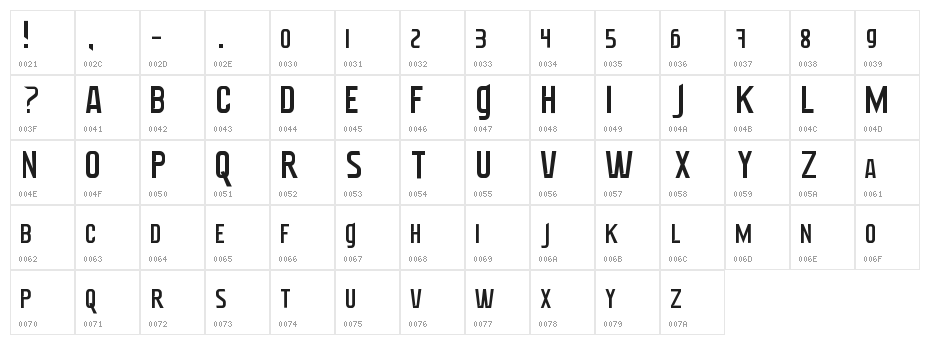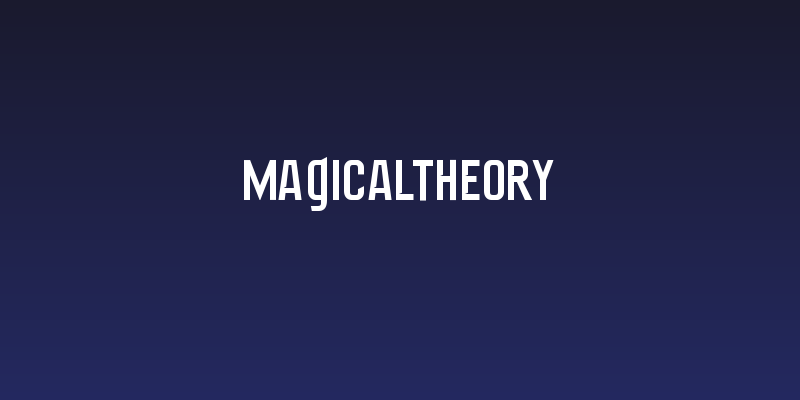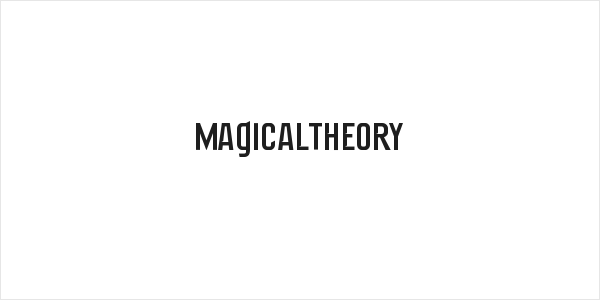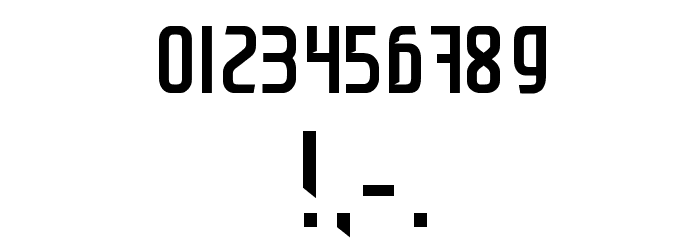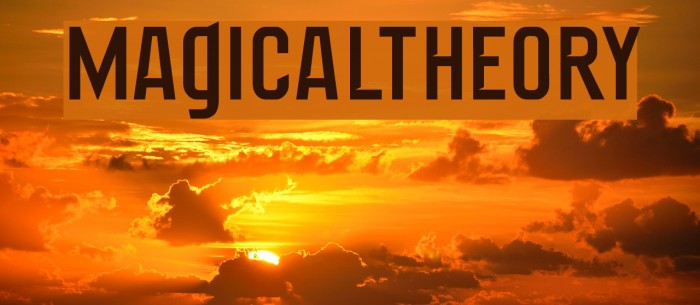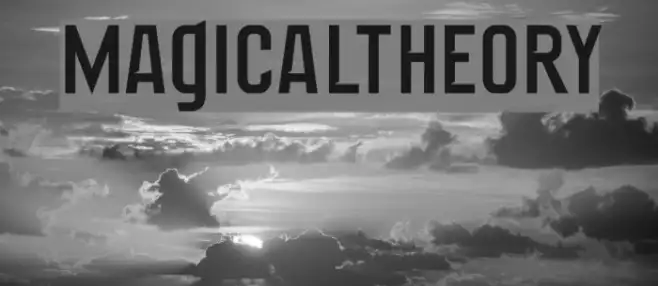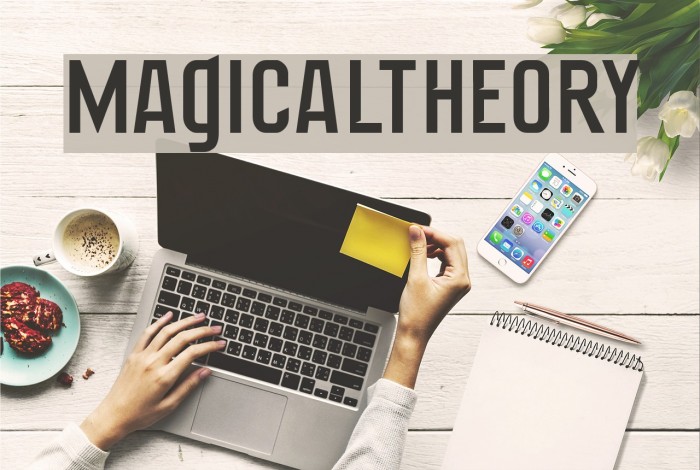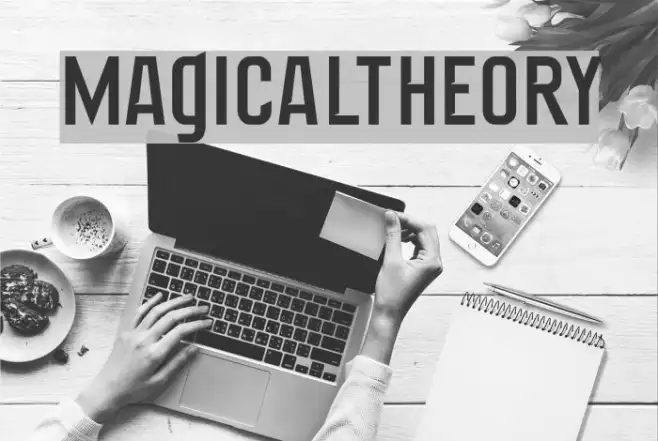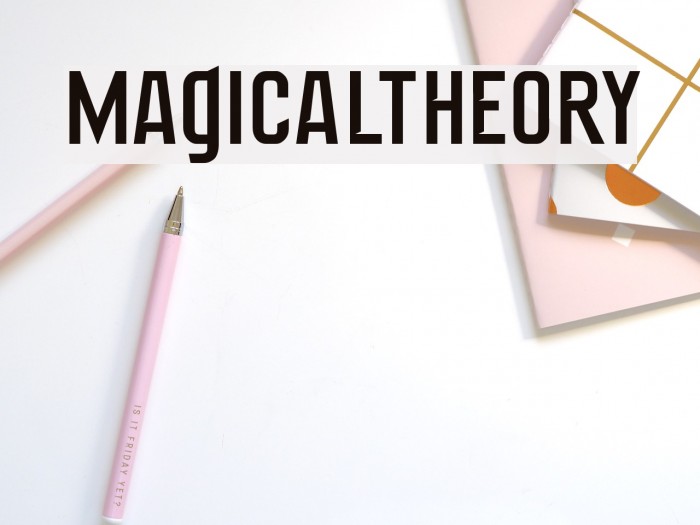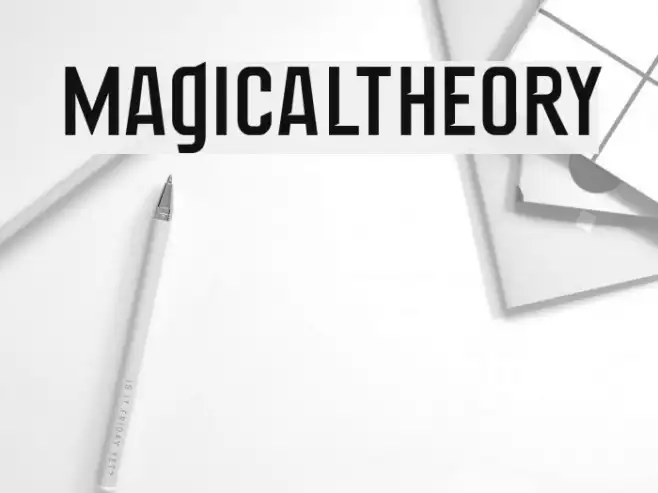
magicaltheory Font
magicaltheory Description
This font features a bold and geometric design with a strong presence. The characters are constructed with sharp angles and straight lines, giving it a modern and assertive look. The uppercase letters are particularly striking, with a uniform height and width that create a cohesive appearance. The lowercase letters maintain the same geometric style, ensuring consistency throughout the typeface. Numbers and special characters are designed to match the boldness and angularity of the letters, making this font highly versatile for various design needs.
| Proposed Projects | Ideal for branding, posters, headlines, and any project requiring a strong visual impact. |